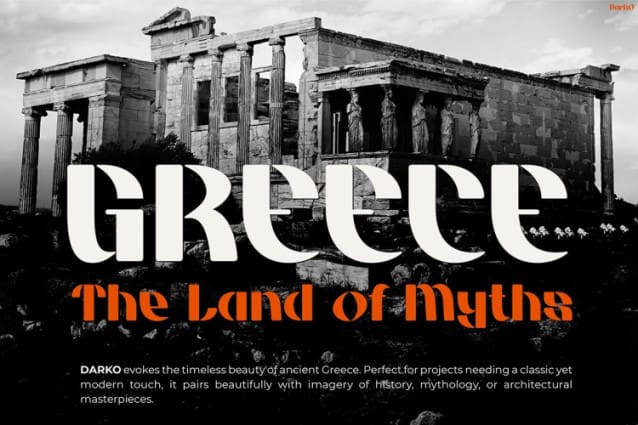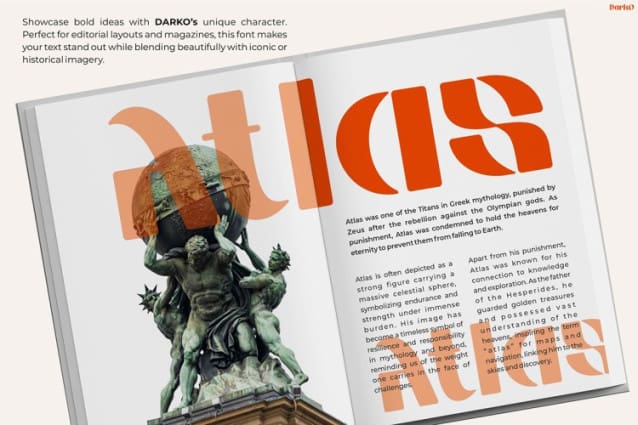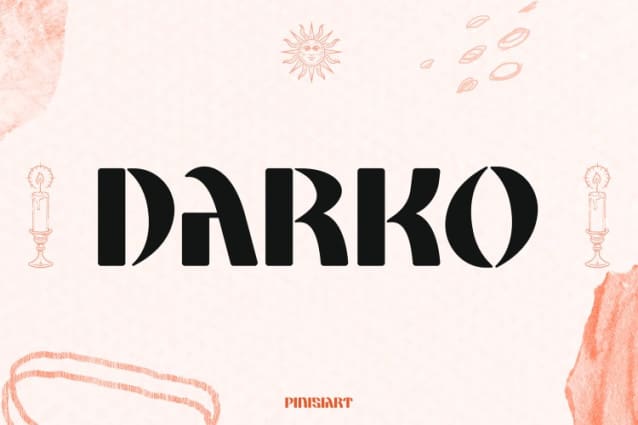
Darko Font
Darko Font is a bold and stylish typeface that blends modern aesthetics with ancient allure. Featuring sharp edges and fluid curves, this font combines elegance with contemporary design. It stands out with its clean, geometric forms and artistic details, making it versatile for various creative projects. Inspired by classical influences and vintage tattoo art, Tattoo Font Darko offers a unique and striking look. It is ideal for projects that need a balance of history and modernity. With distinct letterforms and smooth transitions, this font is perfect for headers, logos, and branding.
This typeface captures the imagination with its dramatic yet harmonious style. The bold strokes and intricate details make it a standout choice for anyone looking to create a lasting impression. Whether used for print or digital designs, Darko Font ensures readability while adding a touch of flair. Its timeless appeal draws from historical art movements while embracing a fresh and modern perspective. By combining versatility with originality, this font opens up endless design possibilities.